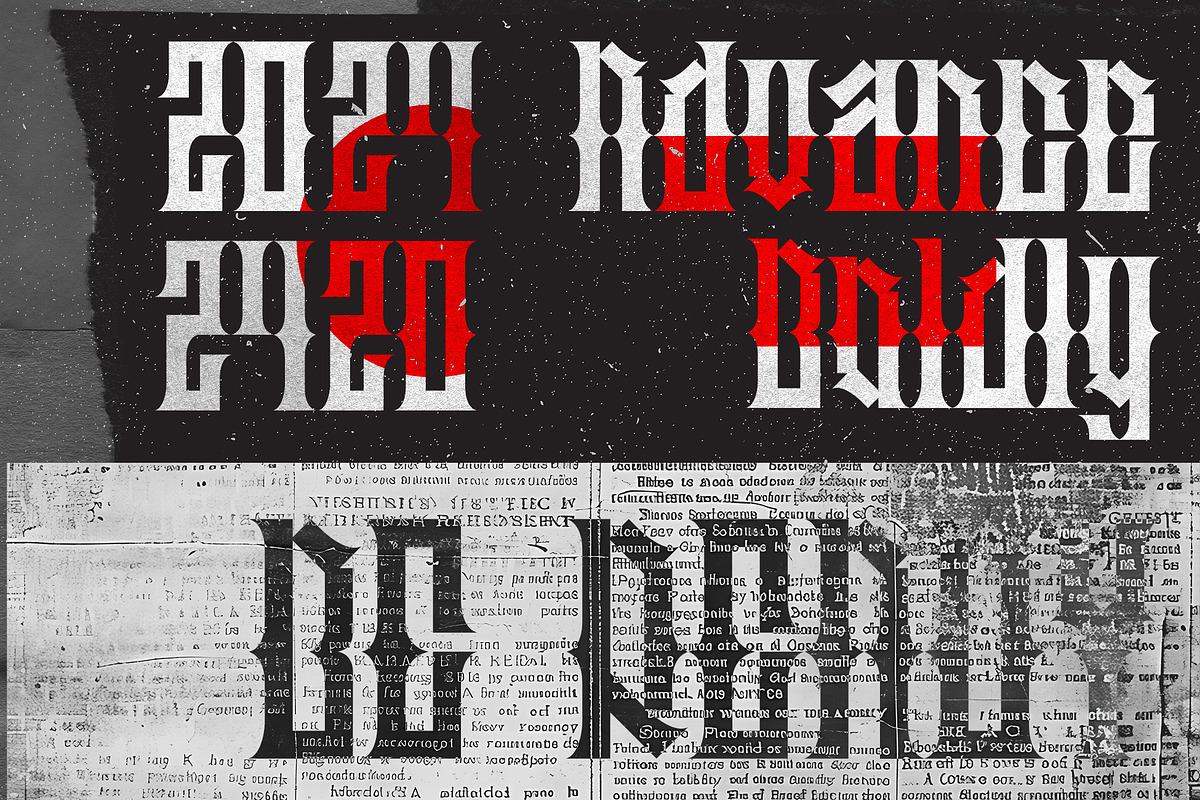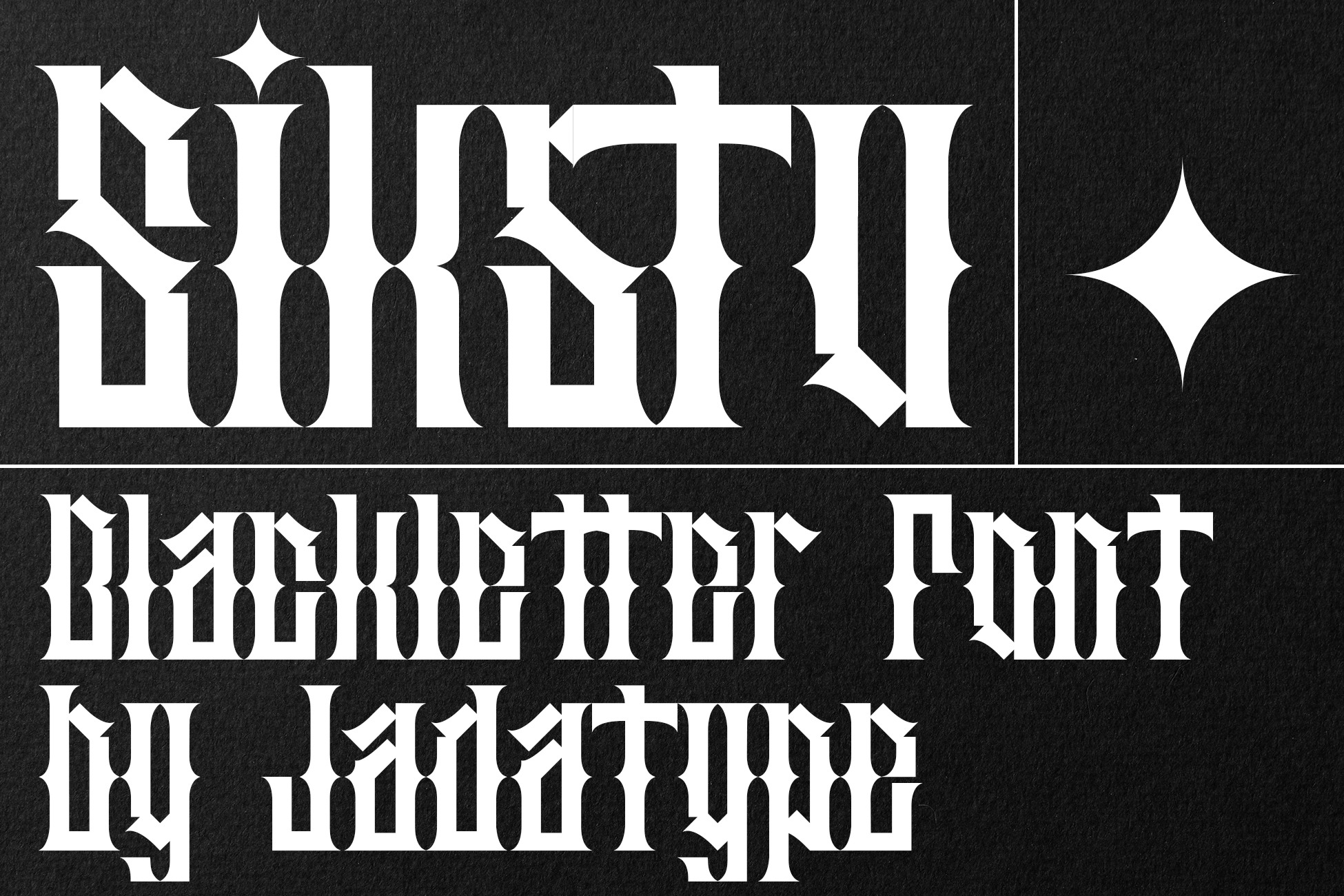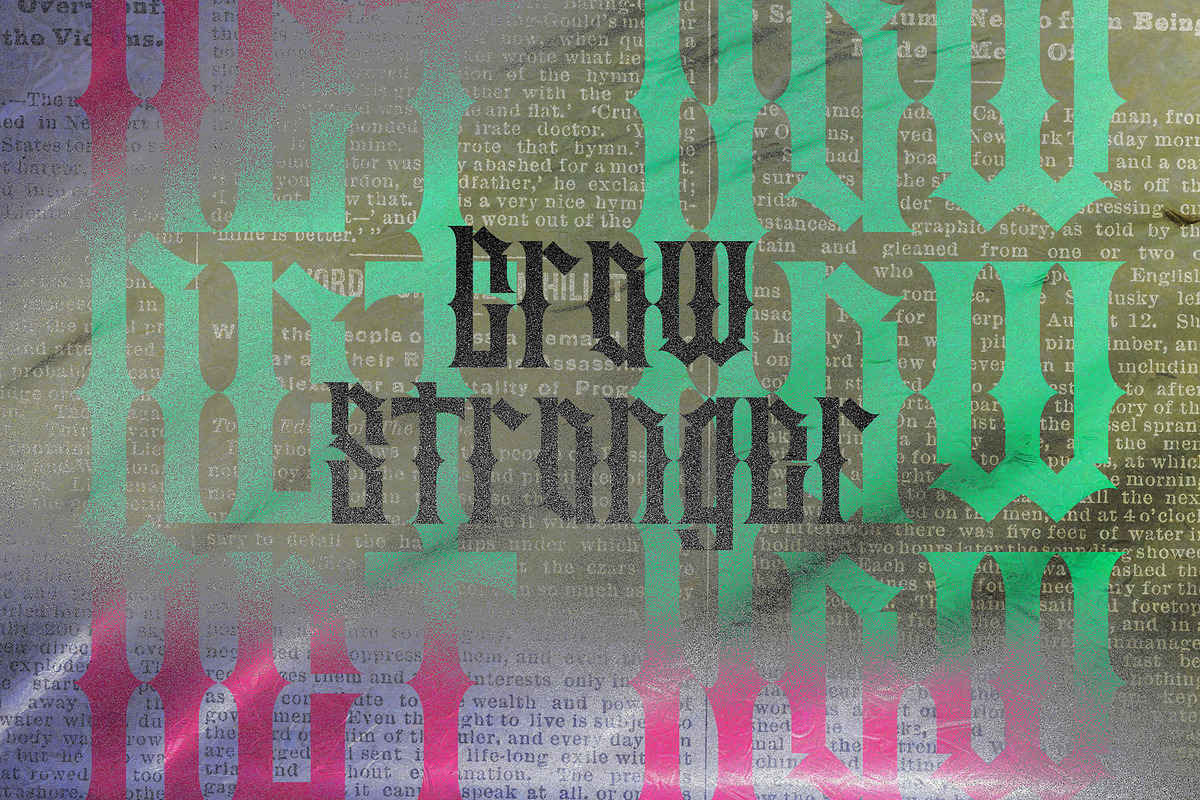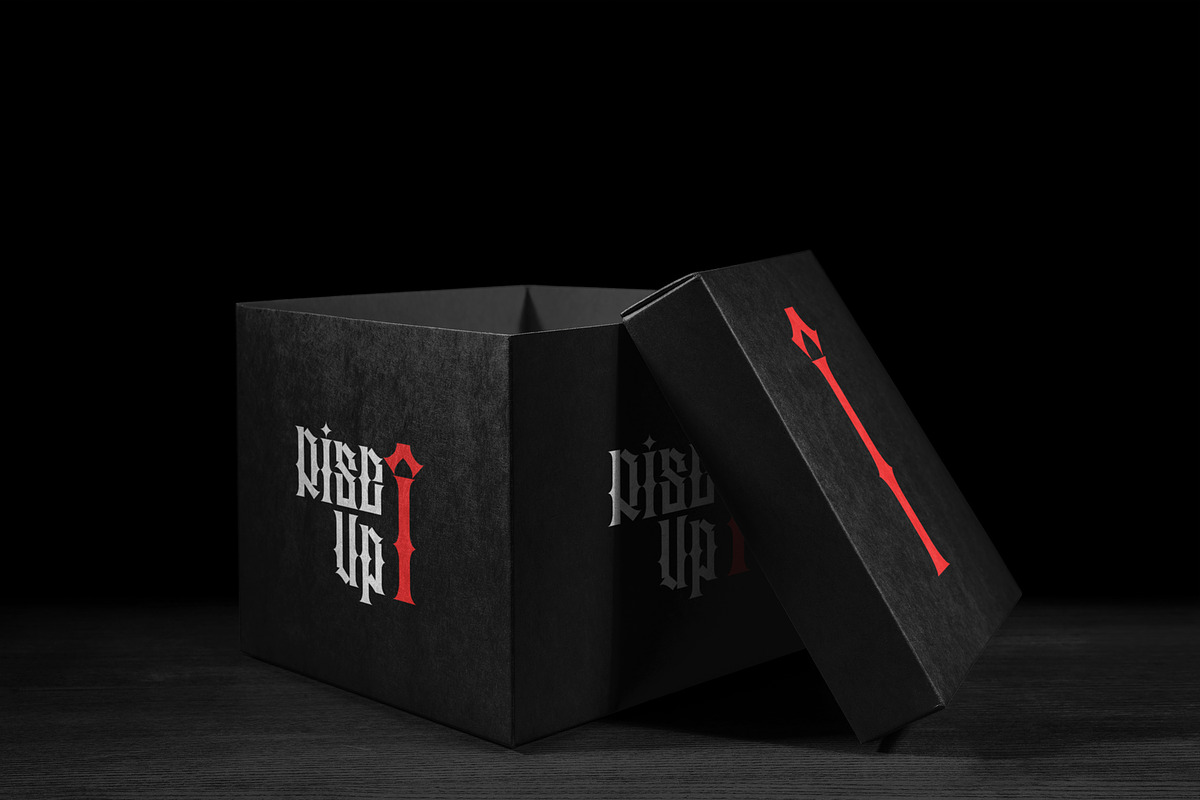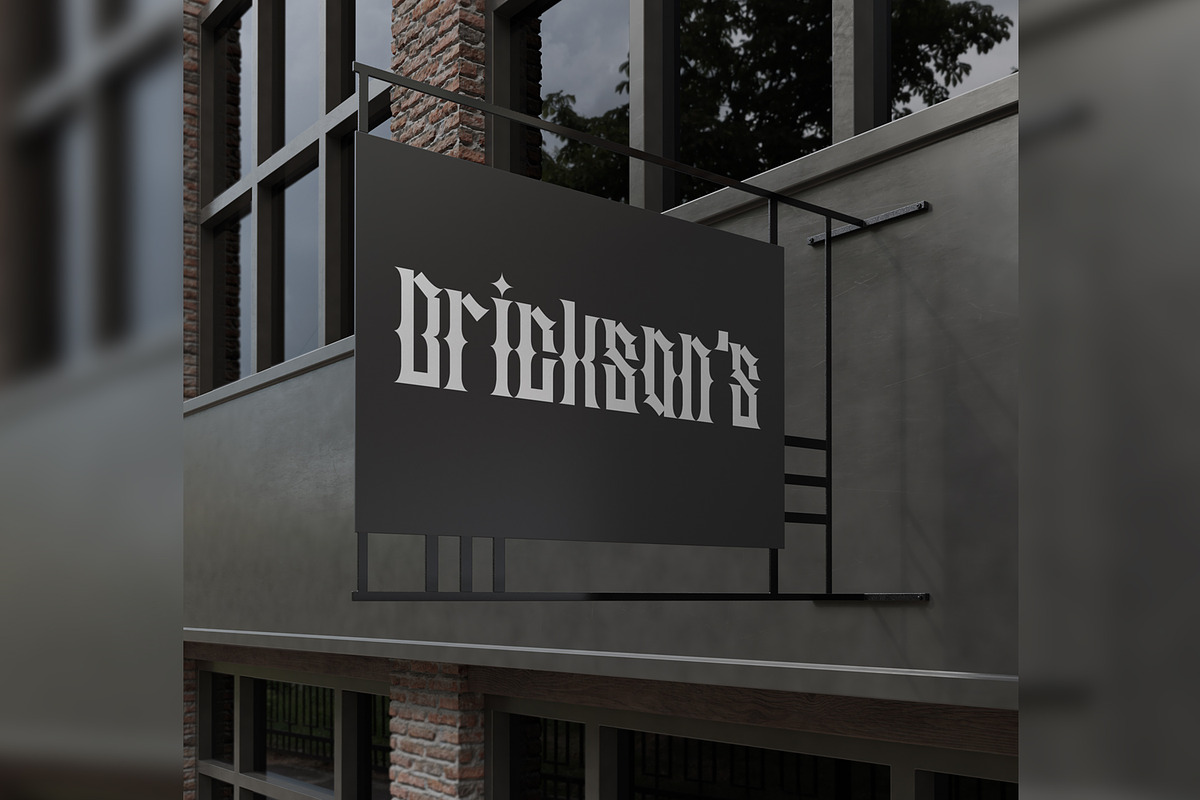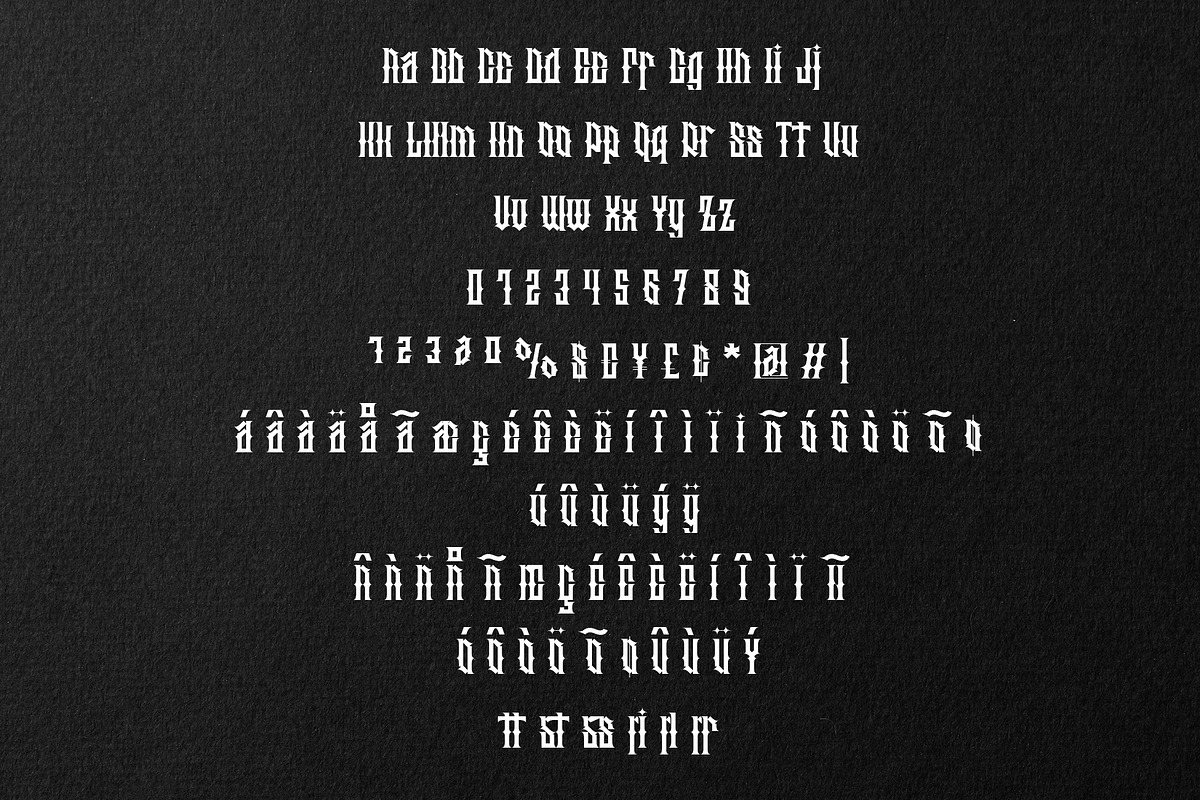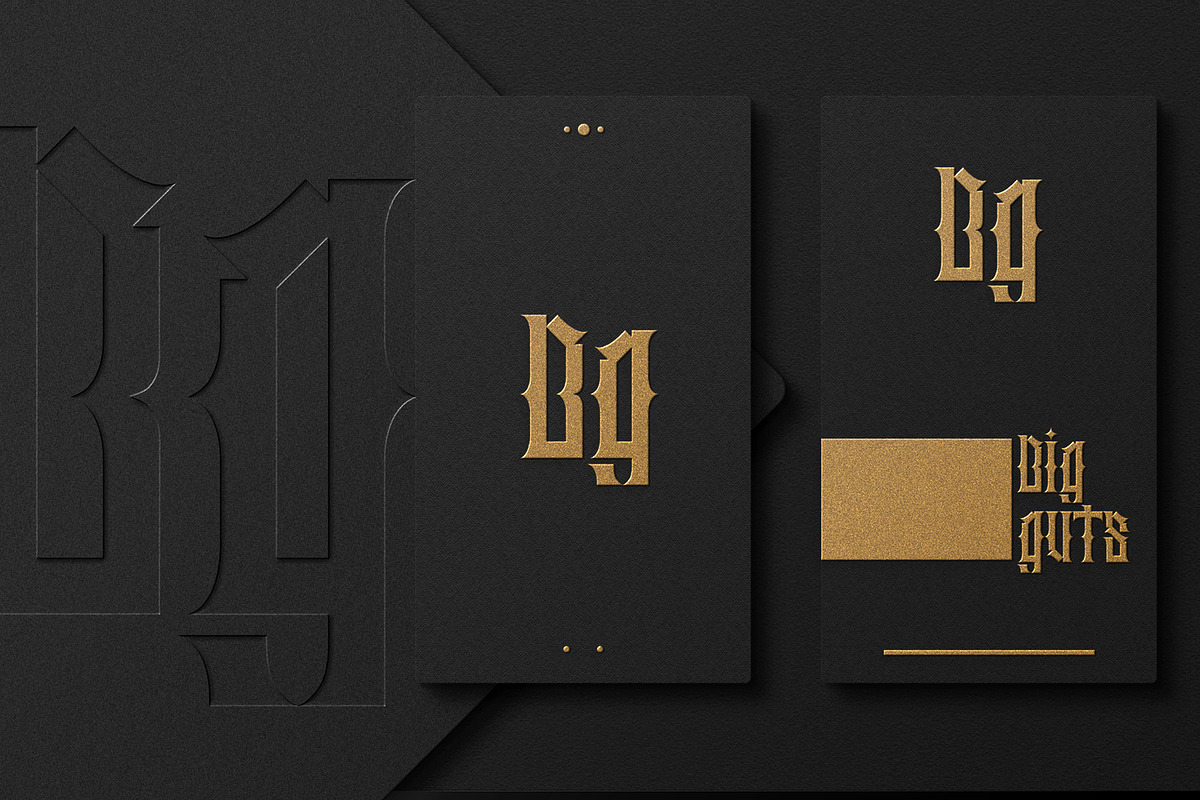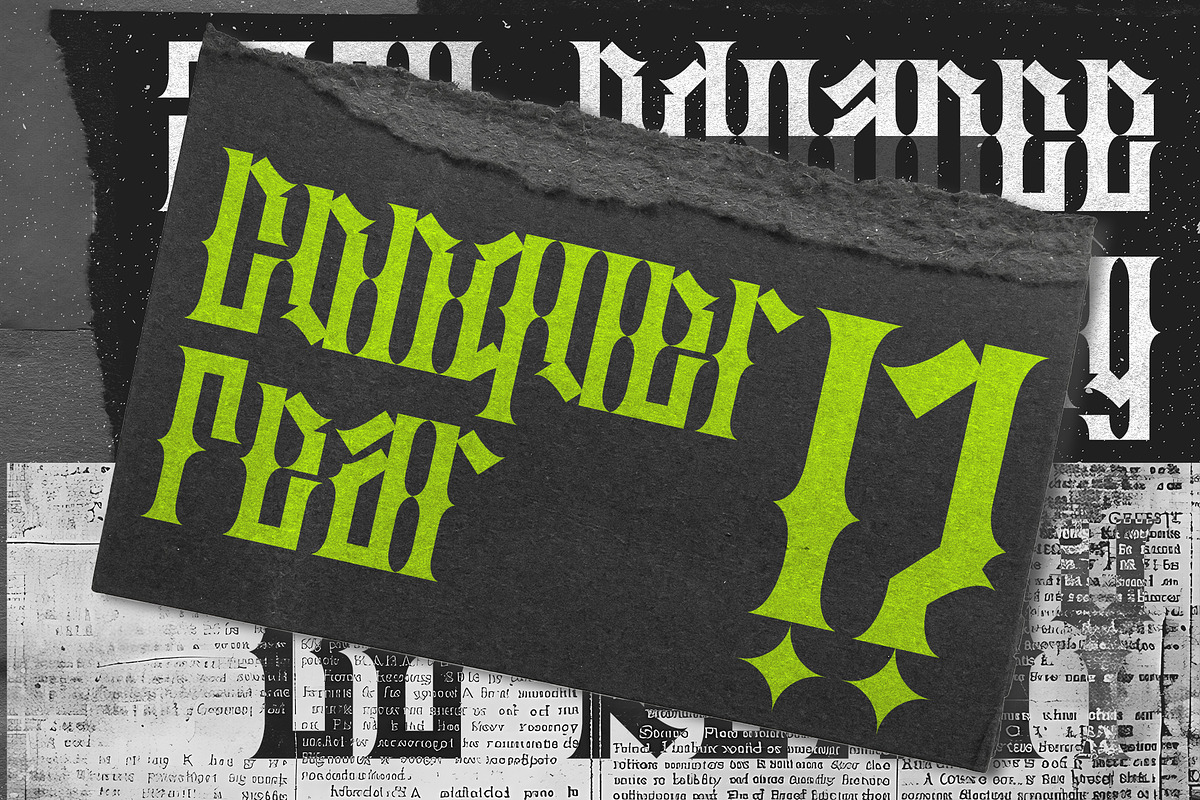
Sikstu Font | Blackletter
Siksu is a Display font that came with Blackletter style. Suitable for product, Branding, social media, logotype and so on. contains standard English letters, numbers, punctuation, and several accents that support multilingualism.